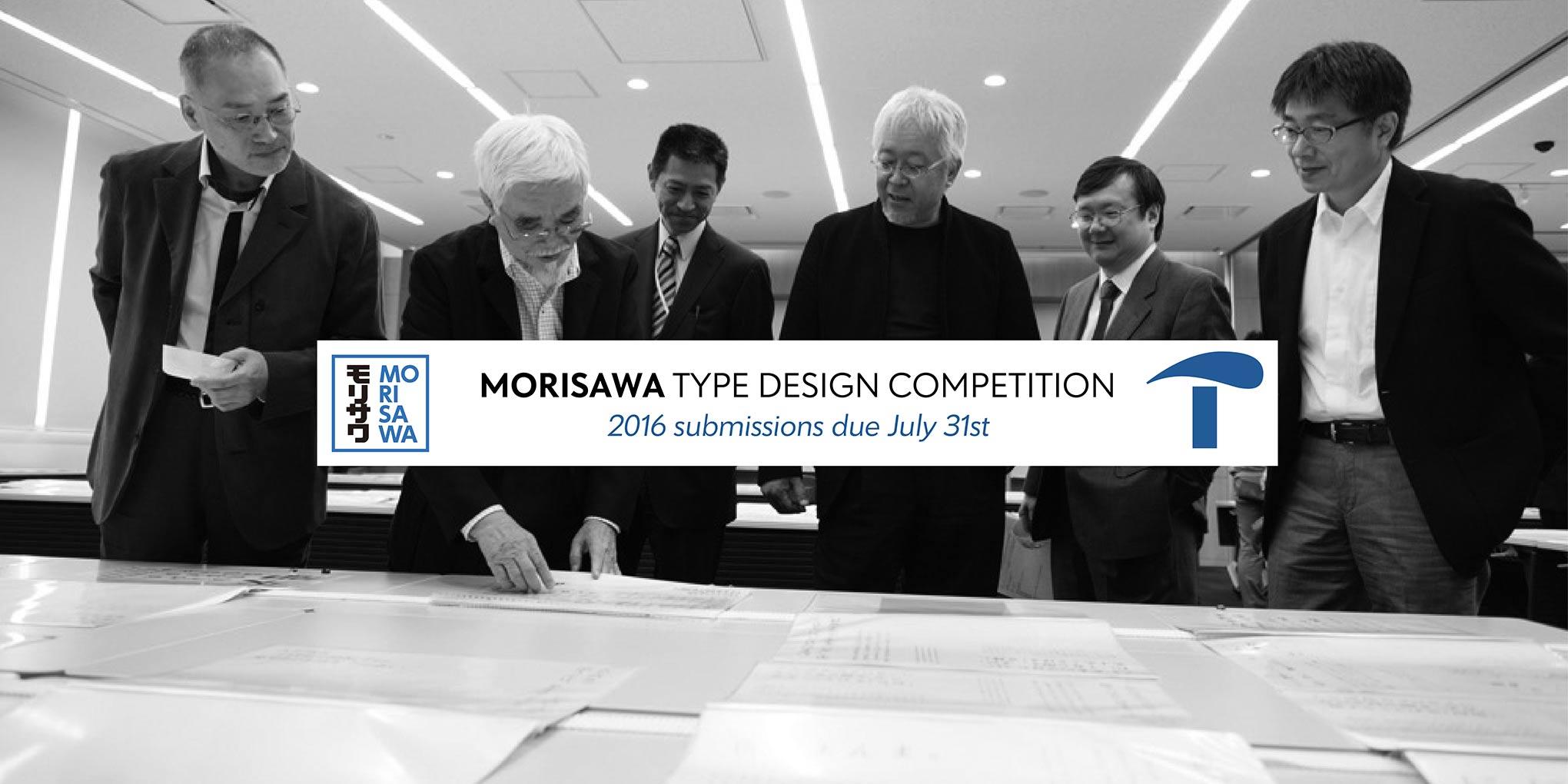
Morisawa Type Design Competition call for submissions nearing its end
Japanese type powerhouse seeks innovative Latin and Kanji faces for its 2016 contest.
Since its competition debuted in 1984, Morisawa, Inc., has provided a showcase for typographic innovation and creativity. This year marks the tenth edition of the Morisawa Type Design Competition, with a call for entries going out worldwide.
The competition is comprised of two categories, Kanji and Latin. This year’s entries will be reviewed by a stellar panel of jurists: Type Network foundry partners Matthew Carter and Cyrus Highsmith; Fred Smeijers, and Sara Soskolne (Latin); Kenya Hara, Yasuhito Nagahara, Osamu Torinoumi, and Taro Yamamoto (Kanji); and Tsunehisa Morisawa (Akashi Award). In addition to the prizes awarded by the jury, Morisawa offers the public a voice: voting for its “People’s Choice Award” will begin in October.
“Being a judge at the Morisawa Type Design Competition is an honor,” said Highsmith, who also served as a jurist in 2012 and 2014. “The competition itself has a great reputation, and I very much admire the work and opinions of the other Latin category judges, Matthew Carter, Fred Smeijers, and Sara Soskolne.”
Highsmith finds common ground with his Japanese counterparts without words: "I very much enjoy getting to know the judges in the Japanese category, such as Osamu Torinoumi. I don't speak much Japanese and he doesn't speak much English, but we are still able to connect with drawings and examples of our work.”
Morisawa Type Design Competition judges, from left to right: Cyrus Highsmith, Matthew Carter, Fred Smeijers, and Sara Soskolne. Photo courtesy of Morisawa, Inc.
The 2012 and 2014 competitions saw at least 1,000 entries submitted from more than 20 countries. That's a huge jump from the submissions for the inaugural awards in the pre-digital era.
“In order to apply for the competition 30 years ago, applicants needed to submit a typeface printed on paper and send it to Japan—not like we accept submissions in PDF today,” said Morisawa’s Keitaro Sakamoto. “It was the era when there was no Macintosh, no printer, no internet.”
The large number of entrants is indicative of the explosive growth and interest in type design. One of the things that makes the Morisawa competition so compelling is the opportunity for exposure it affords to designers from all walks of life. Morisawa has leveled the playing field with an easy electronic submissions process, a lack of entry fees, and the substantial rewards offered: winners are eligible to earn individual prizes worth up to 1 million Japanese yen, depending on placement. In addition, typefaces taking the Akashi gong are eligible for production and publishing by Morisawa.
Winning a Morisawa prize can be life-changing for emerging voices in the field of type design, Sakamoto said. Twombly, who took honors in 1984, has become one of the world’s best-known type designers after serving as a pioneering member of the Adobe Originals team. Other award recipients, such as Lo Celso, Porchez, and Van Bronkhorst, have established successful independent foundries.
The award winners aren't the only ones profoundly impacted by participating in the competition.
"Japan is an amazing place to visit," Highsmith said. "I love the food, the cartoons, the graphic environment—and Morisawa is always an excellent host. Being in Japan has also lead to some very fruitful projects with type designers there as well as new friendships."
A special moment for Highsmith came during a poster signing with the other judges. "Dainty Western-style signatures can look pretty weak next to the big Japanese names written in Kanji with brushes," Highsmith said. "Matthew insisted I use a large chisel-pointed marker to write mine. Mr. Kozuka, the elder statesman of Japanese type design, was looking over my shoulder as it was my turn. When I was done, I looked back at him and saw his eyebrows raised and a smile on his face. I like to think that he approved."
Submissions for this year’s competition will be accepted through July 31, 2016. There is no entry limit; designers are welcome to submit multiple typeface designs in each category. Winners will be announced in December, with an exhibit of the top typefaces to follow. For more information on the Morisawa Type Design Competition, including entry rules and conditions, please visit the official website.